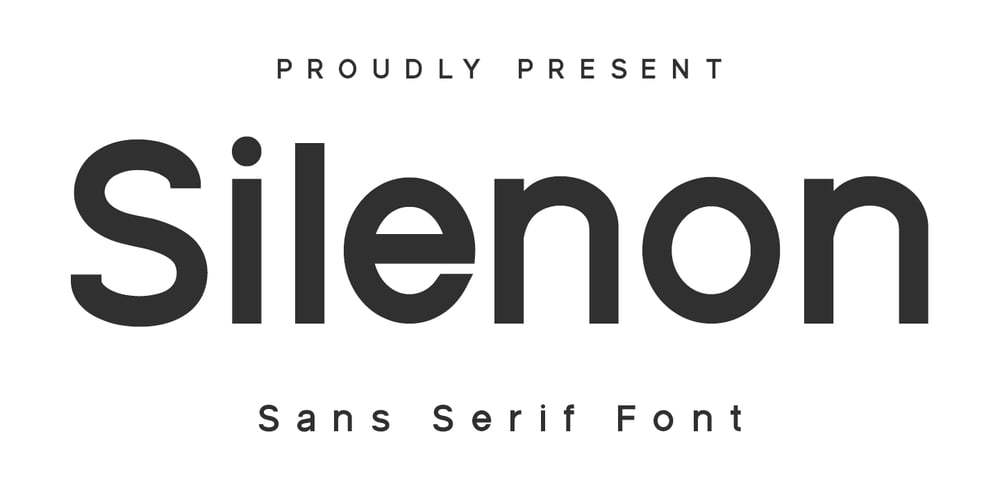
MC Silenon Font Family was designed by Gilang Maulana and published by Maulana Creative. MC Silenon contains 1 styles and family package options. Silenon is a modern sans serif font. With medium stroke, fun character with a bit of alternate. To give you an extra creative work Silenon font support multilingual more than 100+ language. This font is good for logo design, Social media, Movie Titles, Books Titles, a short text even a long text letter and good for your secondary text font with sans or serif. Make a stunning work with Silenon font.